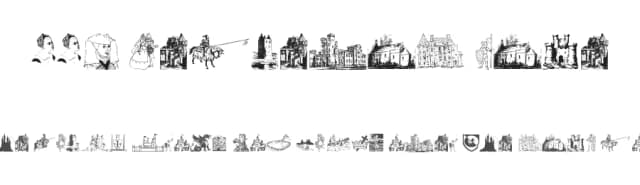
About YY Old English Dingbats Font
YY Old English Dingbats is a dingbat font designed by Yellowyellow. It includes 80 glyphs, a regular weight, TTF (TrueType) format, and 104 languages. YY Old English Dingbats is free to download; check the license details on this page before commercial use. Dingbat fonts like YY Old English Dingbats work best for icons, ornaments, bullet points, and decorative accents.
YY Old English Dingbats Font is a versatile dingbats font that works for both headings and body text. Pair it with a contrasting sans-serif or serif font to add visual interest and a clear distinction between titles and body copy.
YY Old English Dingbats Font
by Yellowyellow
YY Old English Dingbats Font is a dingbats typeface by Yellowyellow, ideal for logos, invitations, branding, and creative projects.